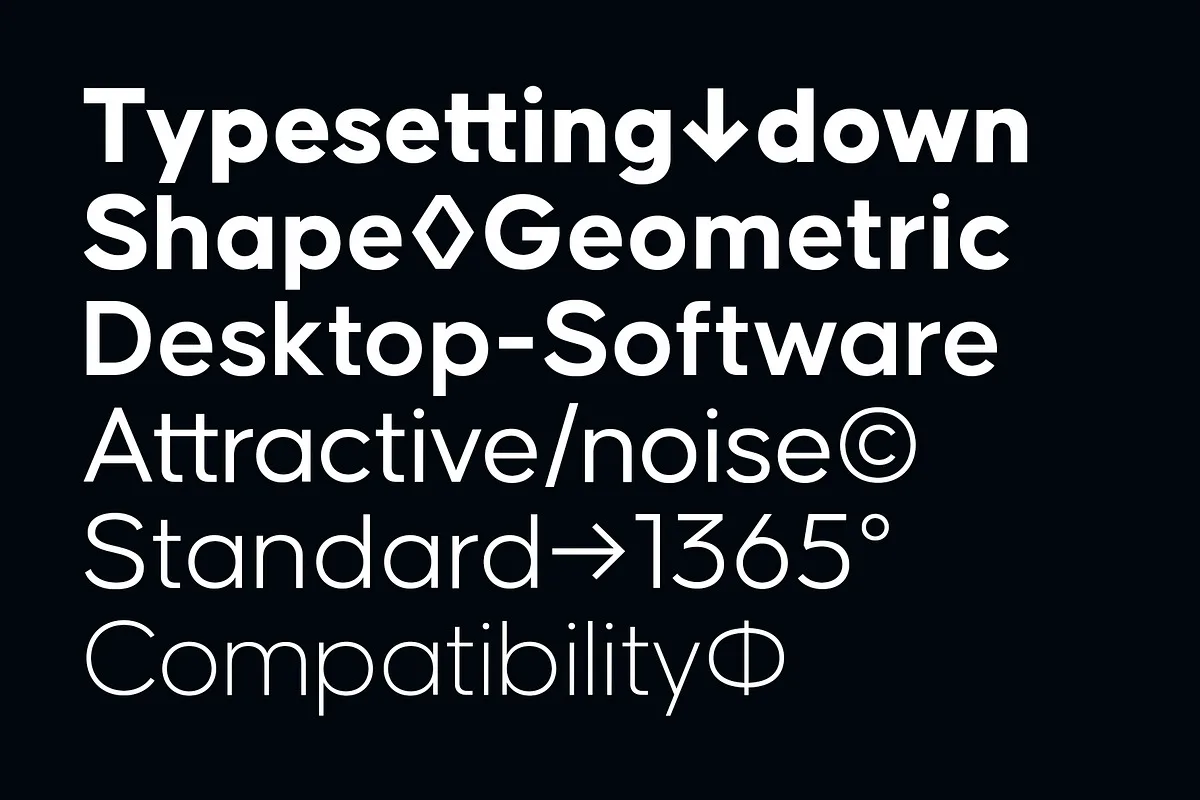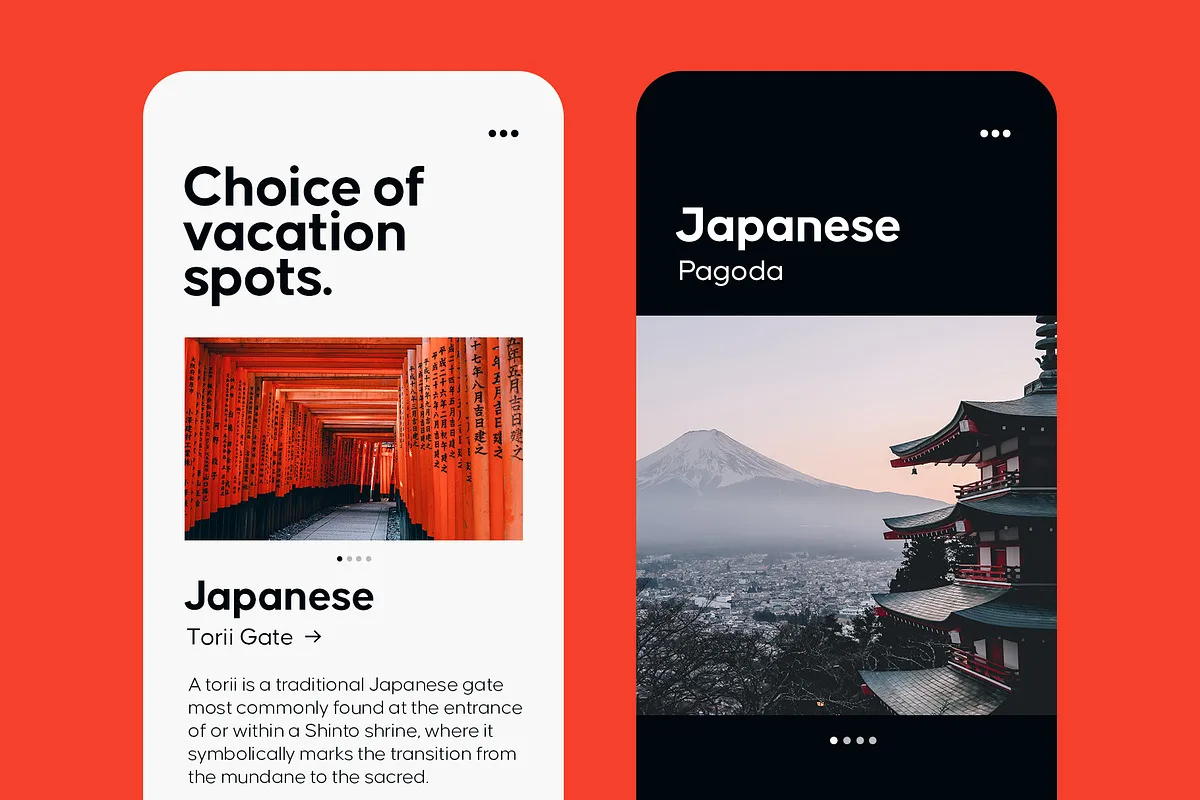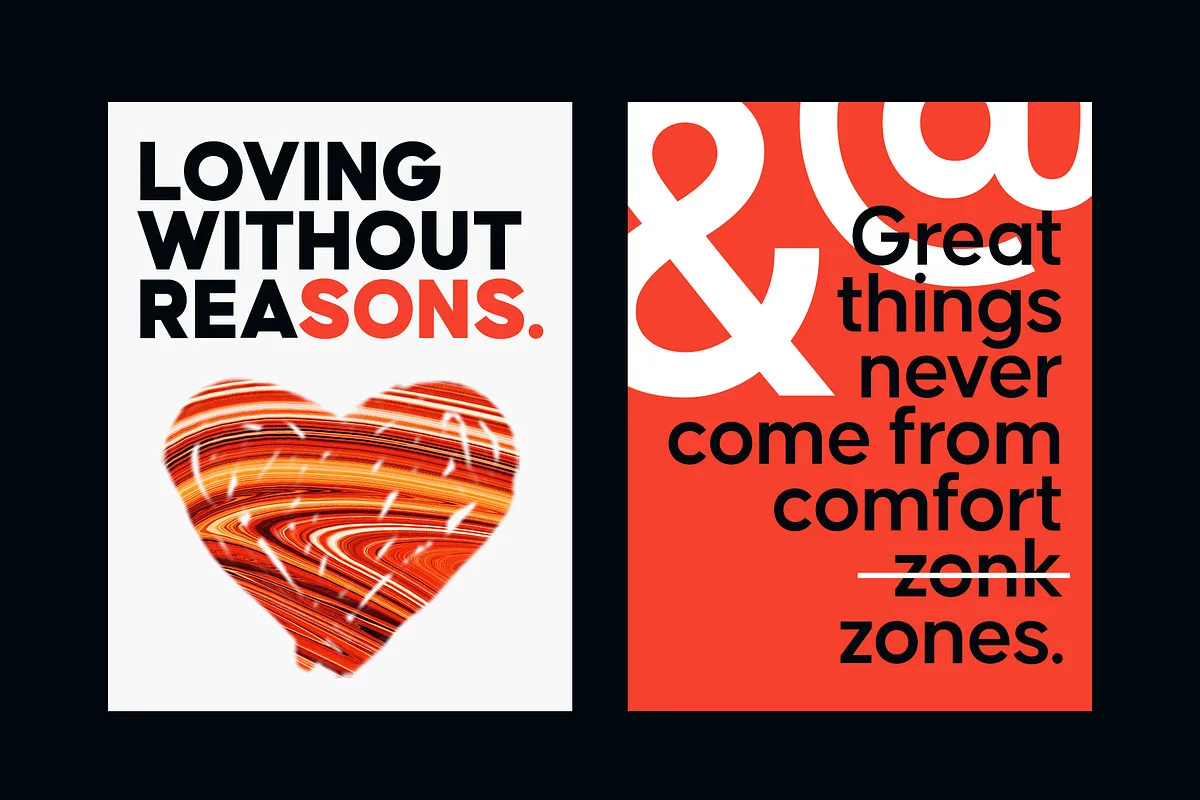
Causten is a geometric sans serif font family with maintains rationality in designing each form. With use the sharpness of the eyes, and remain logical, so that balance is maintained in each form. So, it will get a clean, neat, and perfect shape.
Causten comes with 9 weights and matching oblique, making it 18 styles. It makes perfect for all creative projects. Also, some alternative glyphs will be an attractive choice.
FEATURES
- Uppercase & lowercase
- Punctuation & symbols
- Stylistic Set
- Ligatures
- International characters (Multilingual)